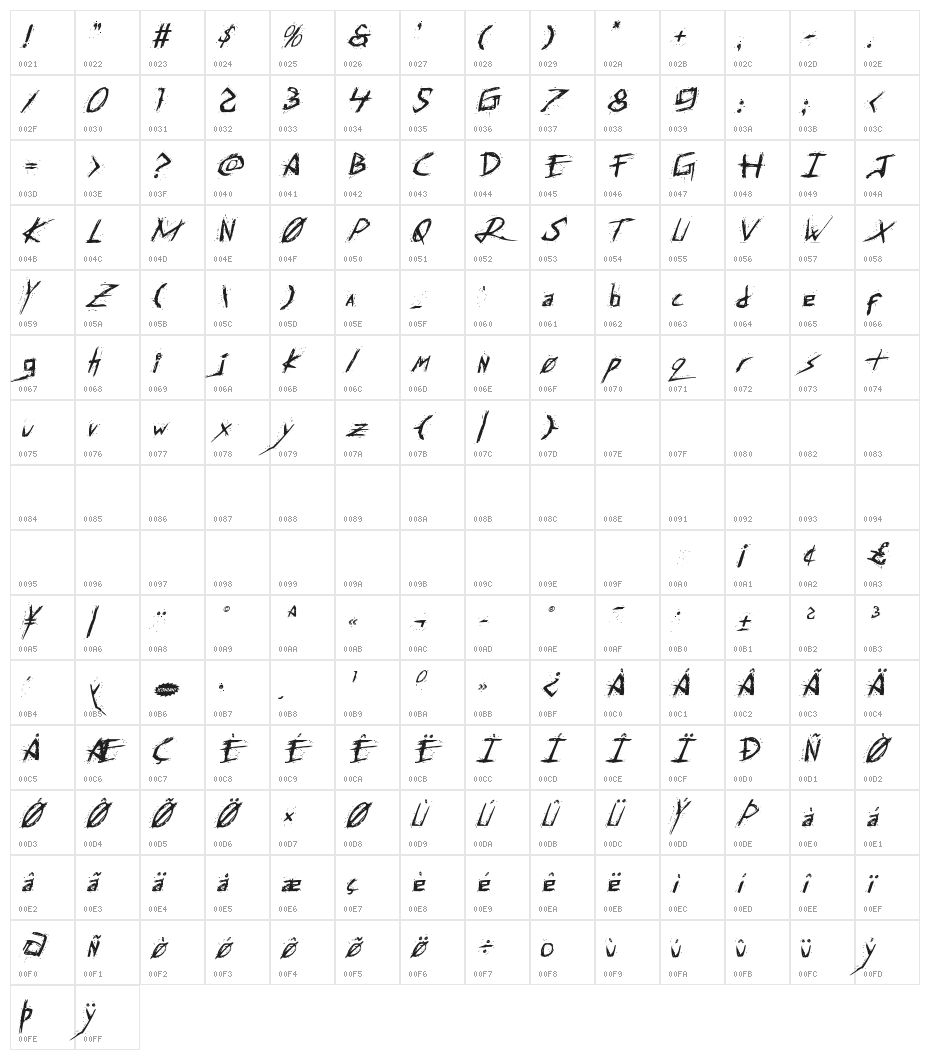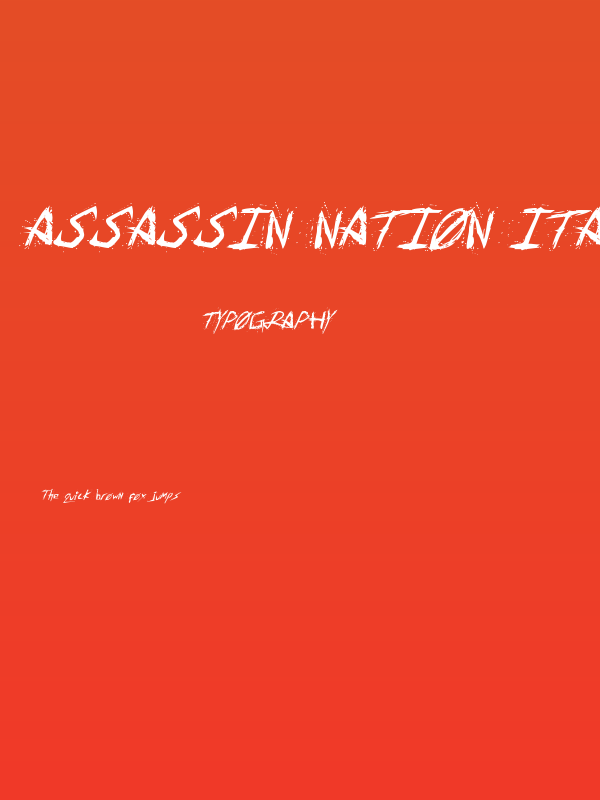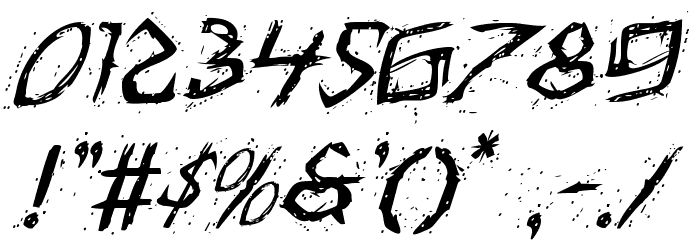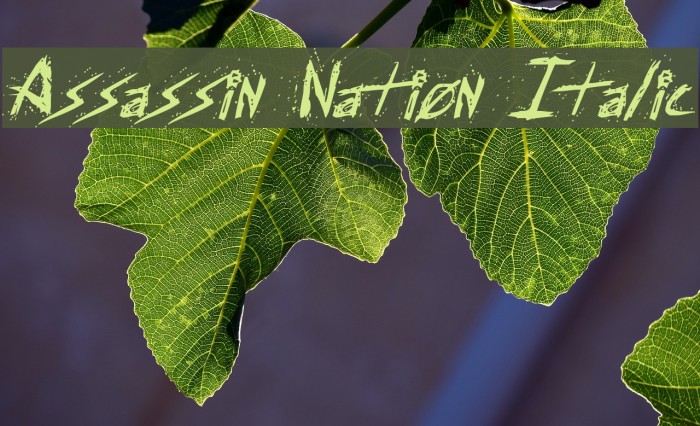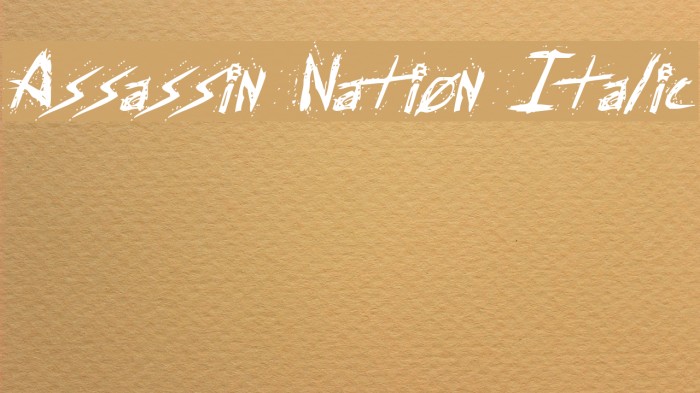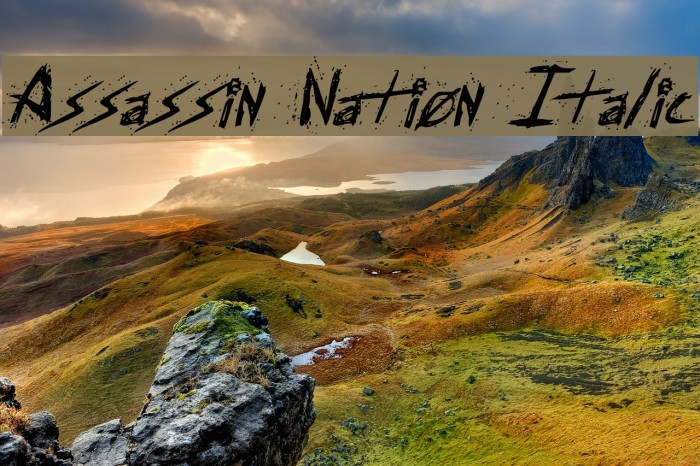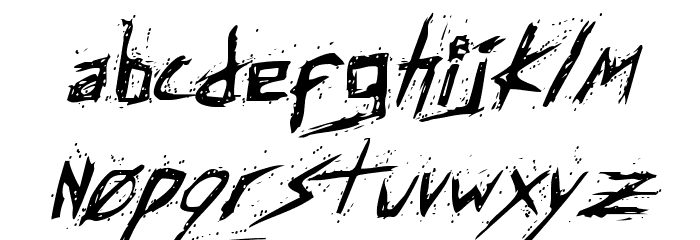
Assassin Nation Italic Font
Assassin Nation Italic Description
This font features a bold, edgy design with a distressed, grunge aesthetic. The characters are sharply angled and appear as if they have been scratched or painted with a rough brush, giving them a dynamic and aggressive look. The uppercase and lowercase letters maintain a consistent style, with jagged edges and irregular strokes that convey a sense of urgency and intensity. The numbers and special characters follow the same design principles, ensuring a cohesive appearance throughout. This font is ideal for projects that require a rebellious or gritty vibe, such as music album covers, posters, or video game graphics.
| Overall Style | Grunge, Edgy, Aggressive |
| Proposed Projects | Ideal for music album covers, posters, video game graphics, and any project needing a rebellious or gritty vibe. |